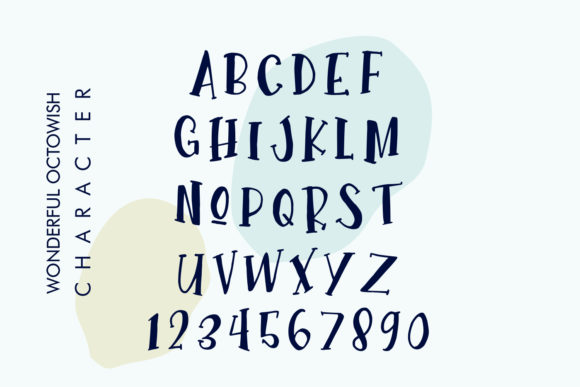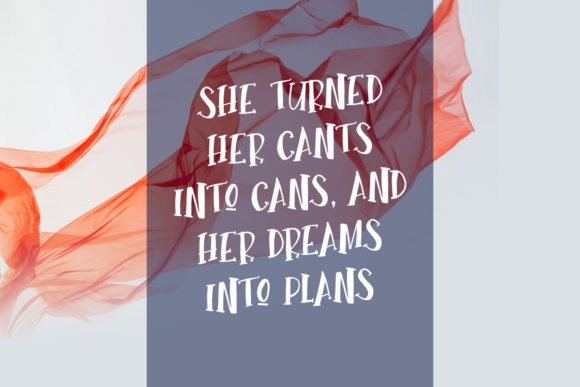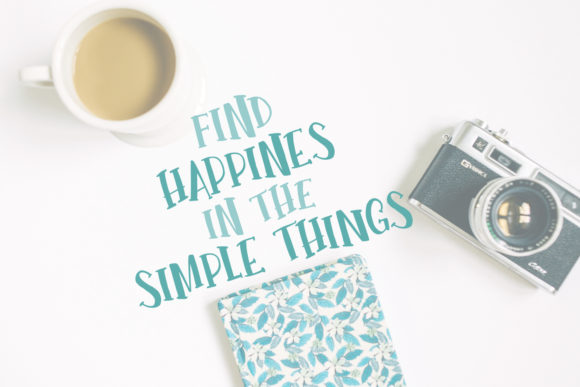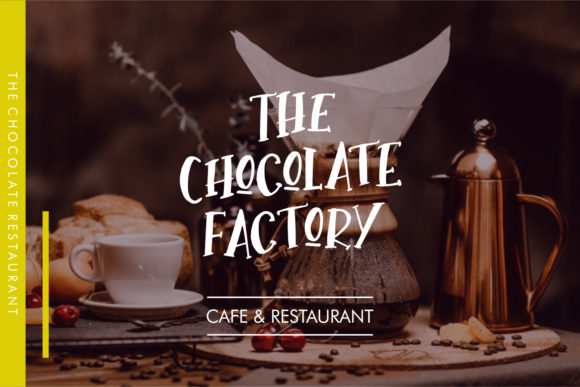
Introduction to Octowish Font
Octowish is a cute and quirky display font.
Add it to your creative ideas and notice how it makes them stand out .
Key Features of Octowish Font
Why Choose Octowish Font?
Octowish Font offers exceptional quality and versatility, making it a valuable addition to your design toolkit. Whether you’re creating for personal projects or commercial use, Octowish Font delivers professional results.